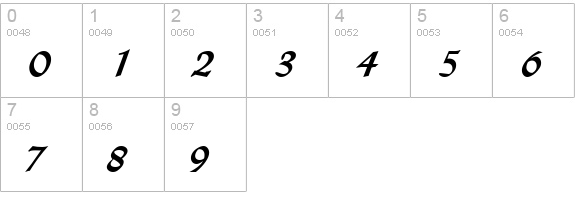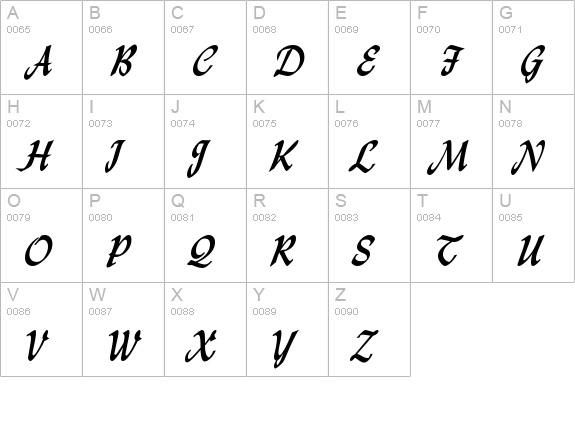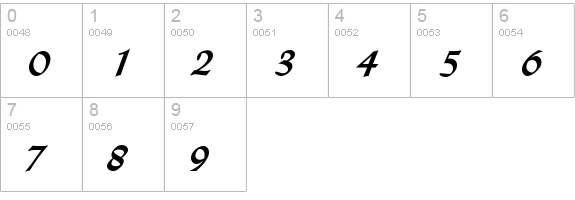
Lynda Cursive Bold is a strong, high-contrast variant in the Lynda typeface family \xE2\x80\x94 well suited to headlines, attention-grabbing titles, and strong calls-to-action.
Introducing Lynda Cursive Bold font, a sleek and elegant typeface that exudes sophistication and style. With its flowing lines and bold strokes, this font is perfect for adding a touch of glamour to your designs. Whether you're working on wedding invitations, branding materials, or any other project that calls for a touch of elegance, Lynda Cursive Bold is sure to make a statement. Best of all, this stunning font is available for free download at FontsMarket.com. Simply visit the website and get your hands on this gorgeous typeface to elevate your design projects to the next level. Don't miss out on the opportunity to add Lynda Cursive Bold to your font collection today!